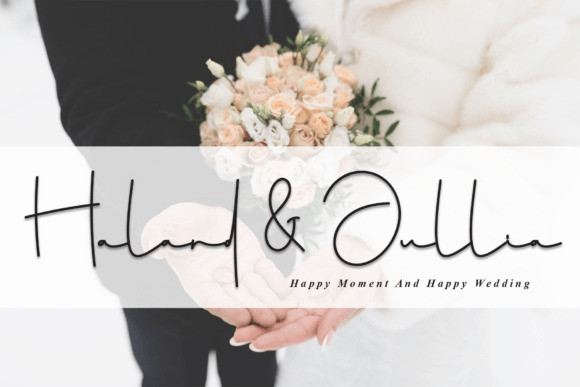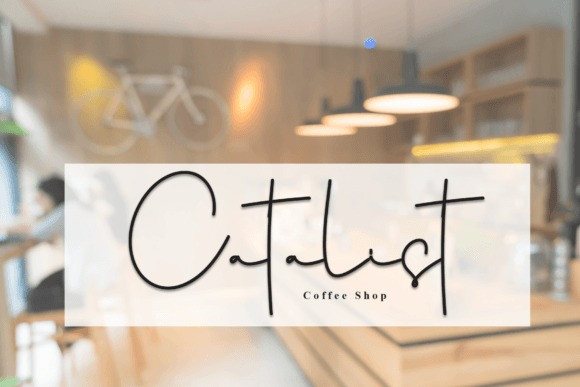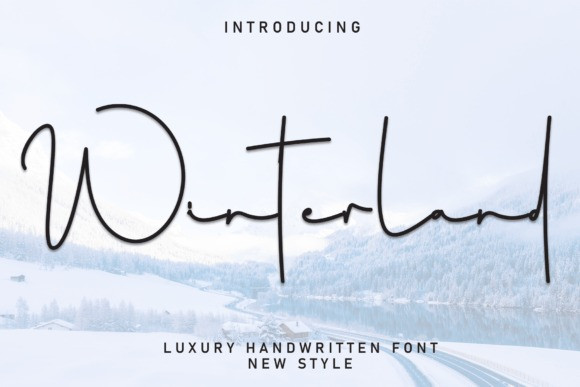
Winterland Handwritten Font
Winterland Handwritten Font is a handwritten font with a casual, unique style. It has smooth, flowing lines that give it a relaxed and personal feel, perfect for adding a touch of creativity to any project.